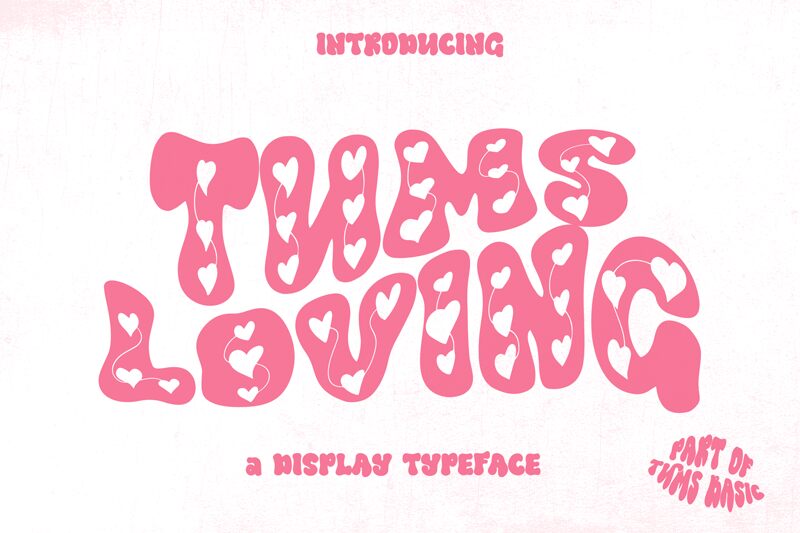
Fall deeply in love with Tums Loving font, designed by dianhaniff. This extra-bold display typeface is perfect for all your Valentine's Day projects, from heartfelt cards to romantic posters. Its elegant curves and playful swashes will set the mood for a truly magical celebration of love. Tums Loving is also suitable for branding projects that require a touch of whimsy and charm. Let this enchanting font steal your heart and captivate your audience with its unique personality.
Tums Loving